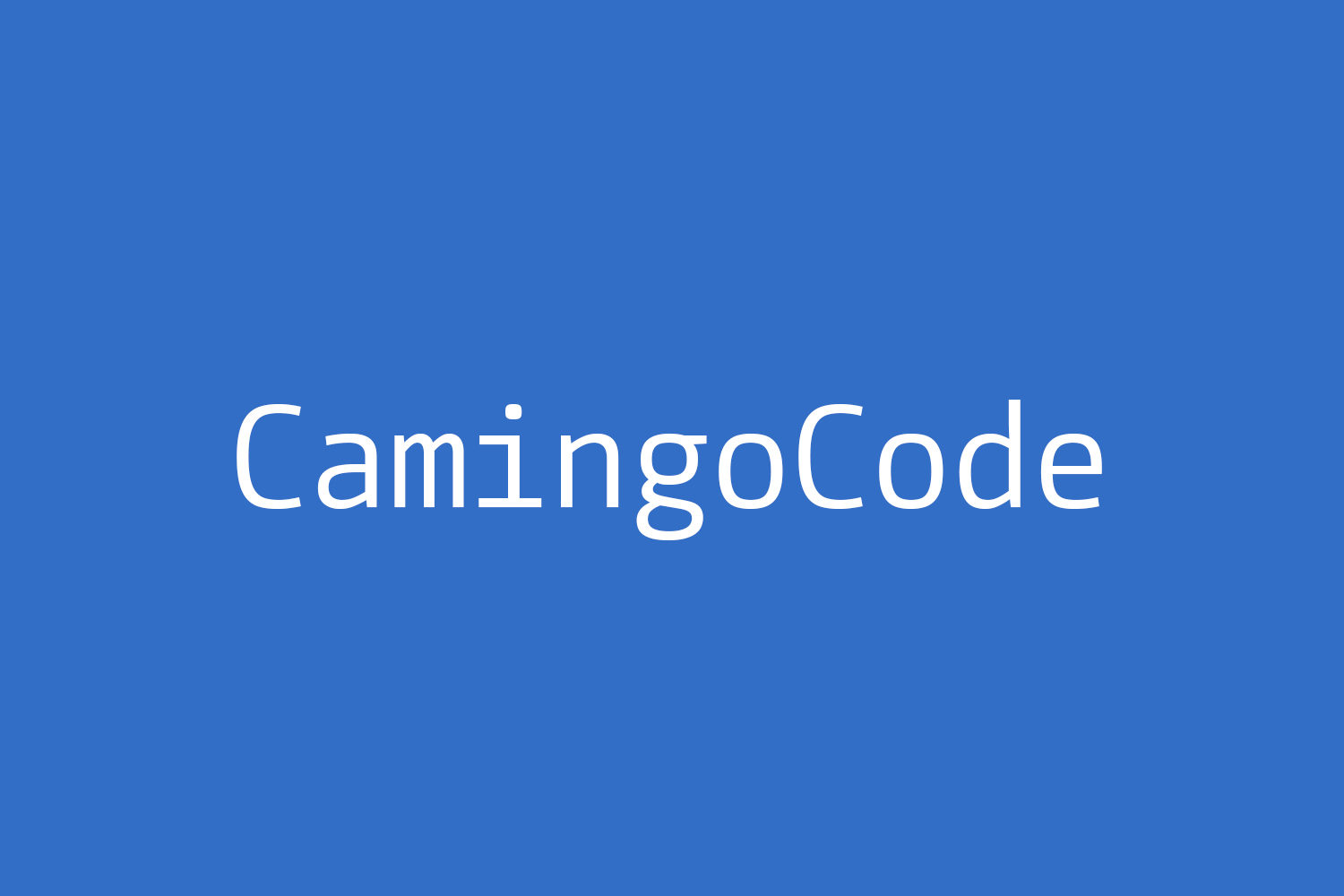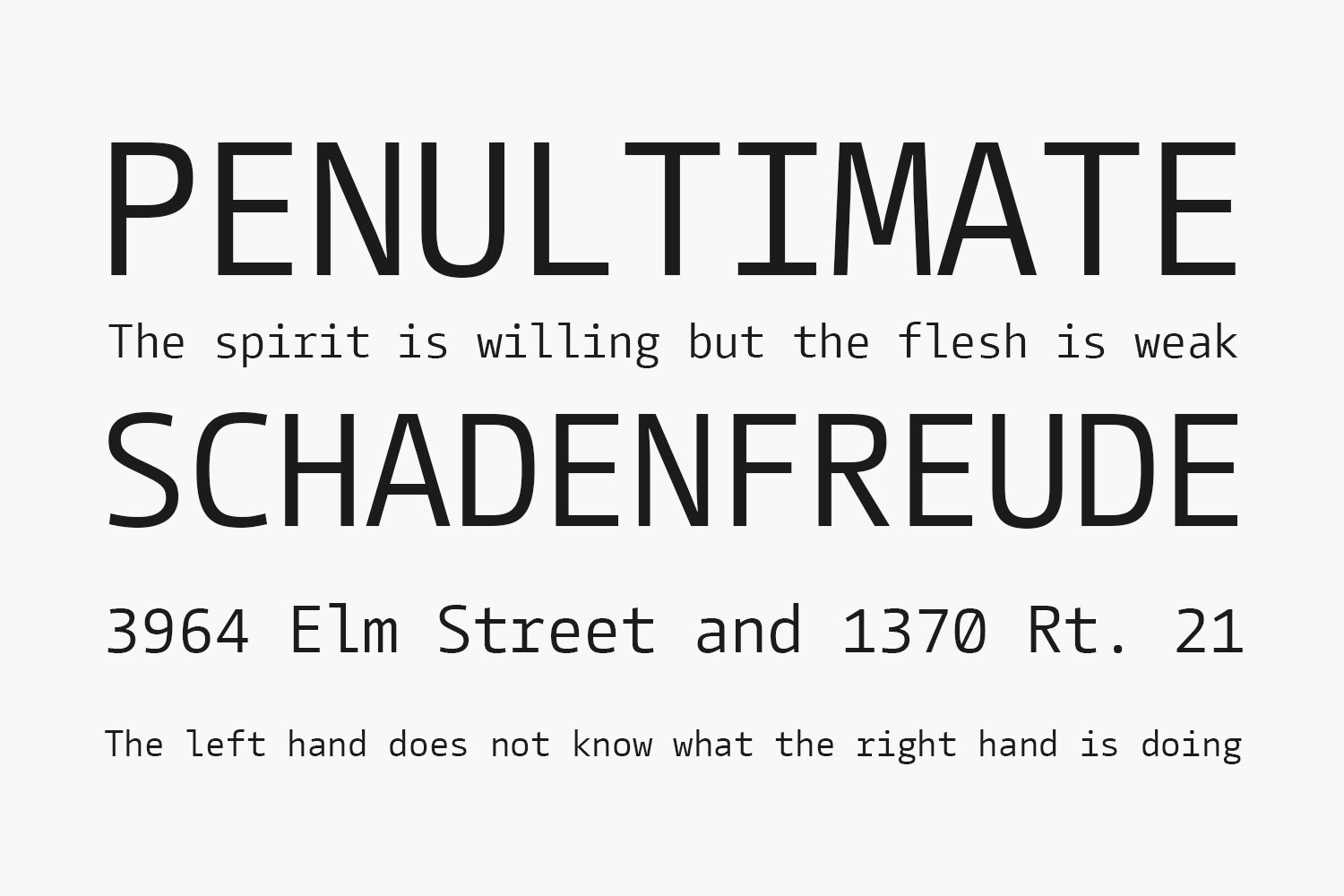
CamingoCode Free Font is designed for source-code editors. It is based on CamingoMono, but has several specially drawn glyphs that work well at small sizes, including Q, l, &, *, ~ and #. The stroke weights are relatively light, which makes CamingoCode suitable for both bright and dark visual themes. The family consists of four style-linked fonts (Regular, Italic, Bold and Bold Italic) and is manually hinted to give the best possible appearance on screens.
Designed by Jan Fromme